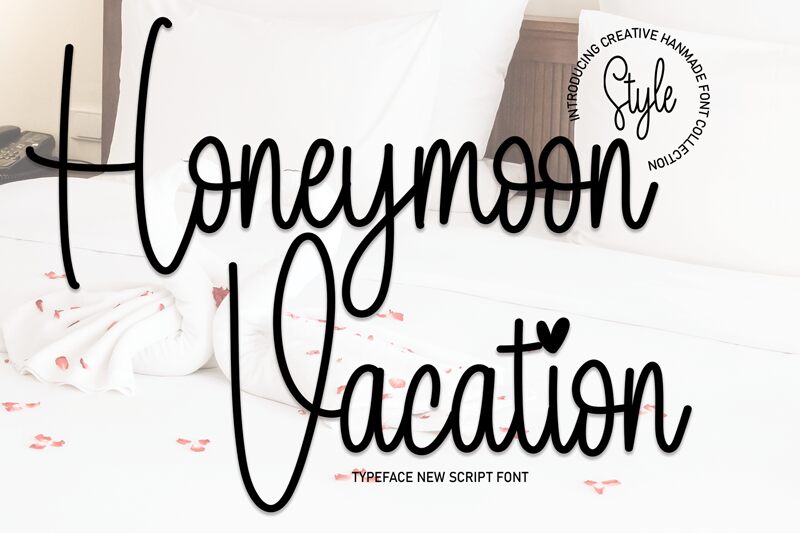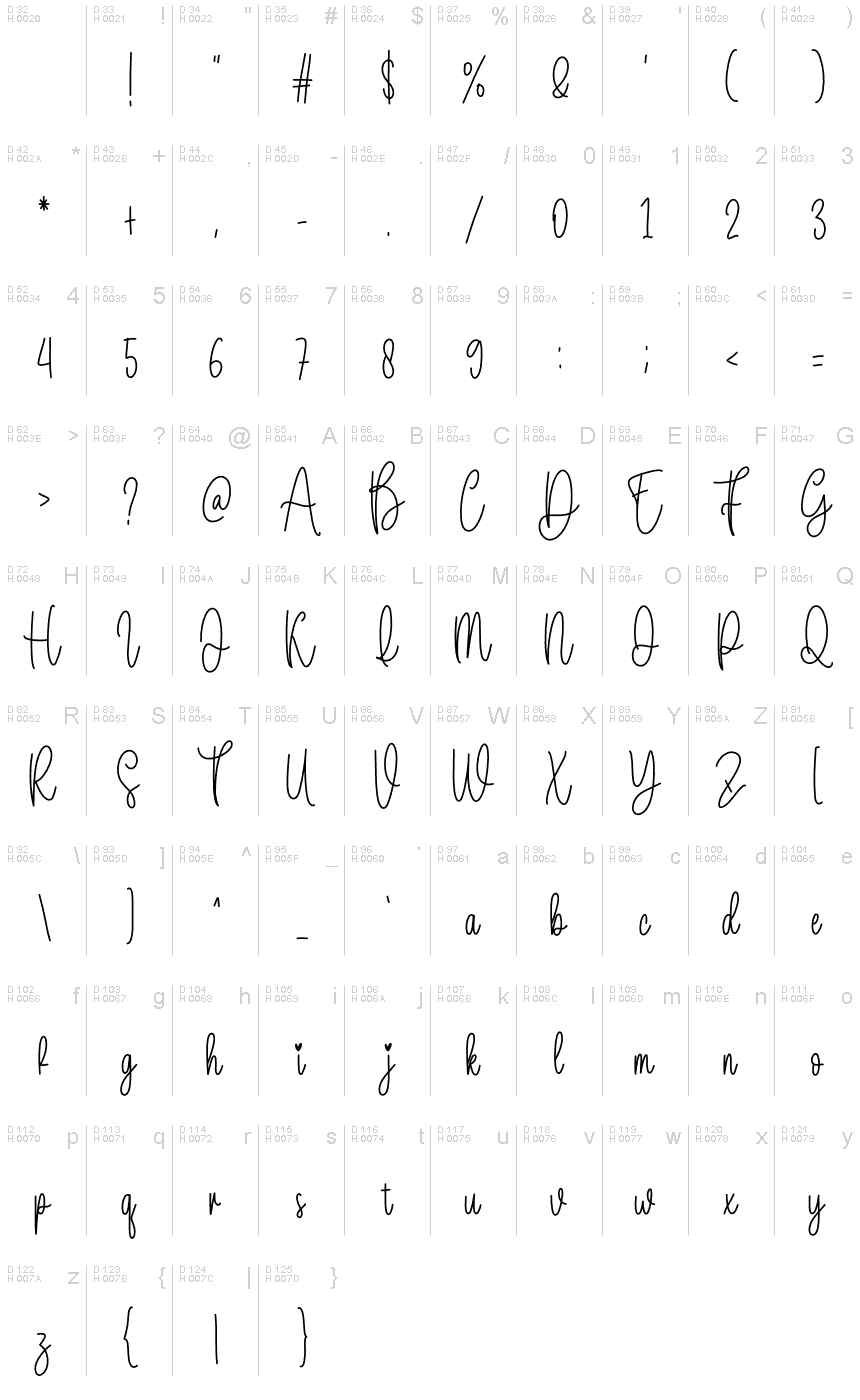
Honeymoon Vacation
Honeymoon Vacation is a handwritten font crafted by Scratchones that radiates a personal touch with its light and condensed style. The elegance of this font lies in its fluidity and effortless grace, reminiscent of a carefree script penned with love. Its delicate weight enhances readability while adding a chic, airy quality to any design.
The Honeymoon Vacation font's aesthetic charm makes it an excellent choice for invitations, branding, and advertising projects where a sense of intimacy and sophistication is desired. This typeface is particularly well-suited for industries such as wedding planning, fashion, and beauty due to its romantic allure.
Embrace the charm of Honeymoon Vacation for your next creative endeavor to imbue your work with the handwritten authenticity that resonates with elegance and finesse.